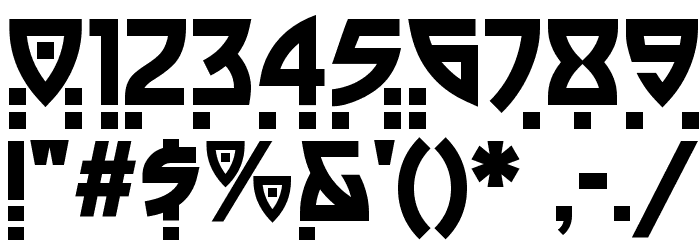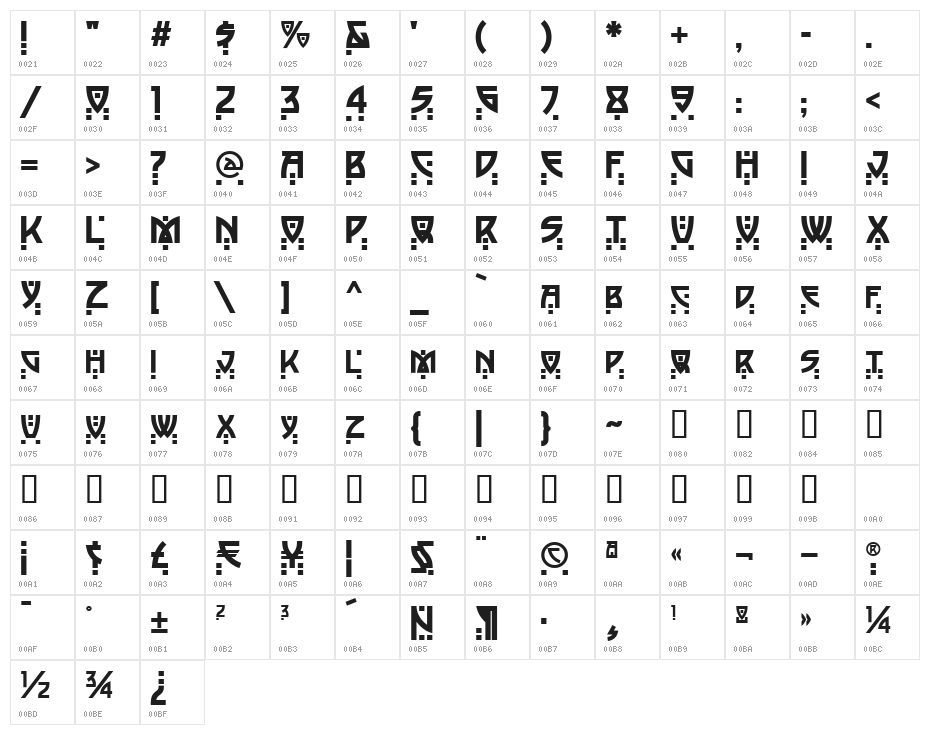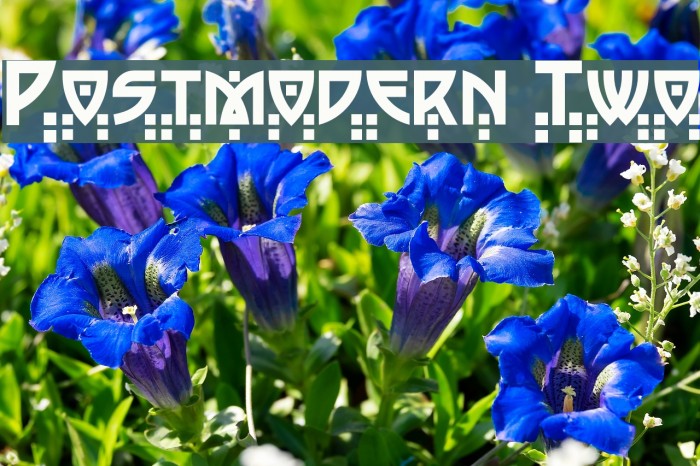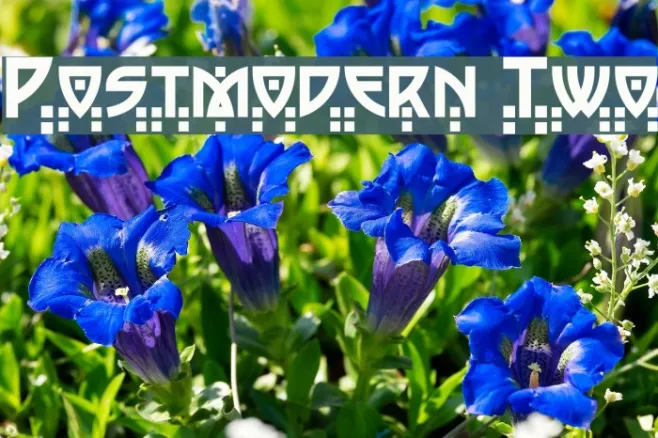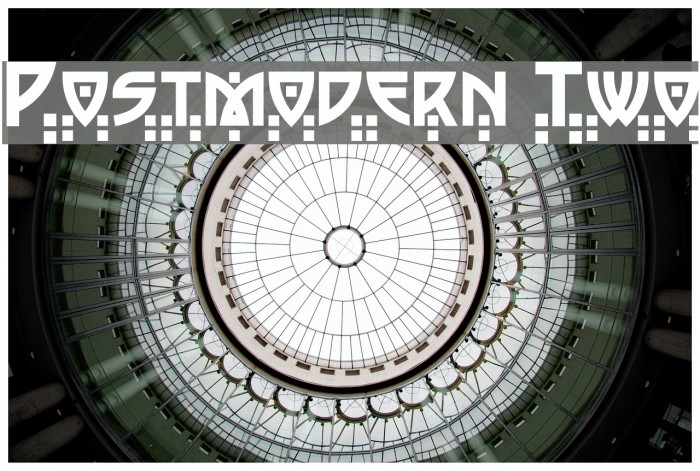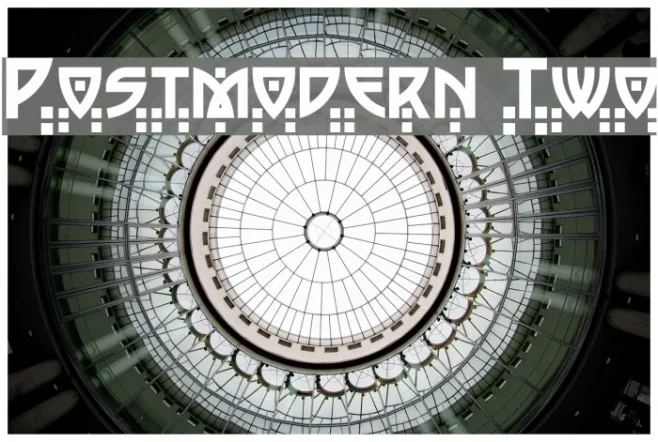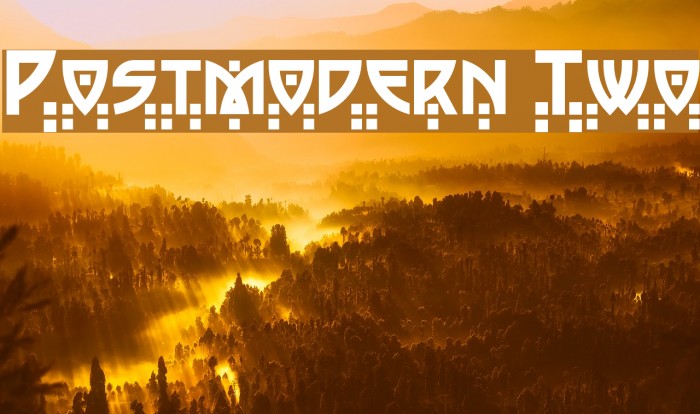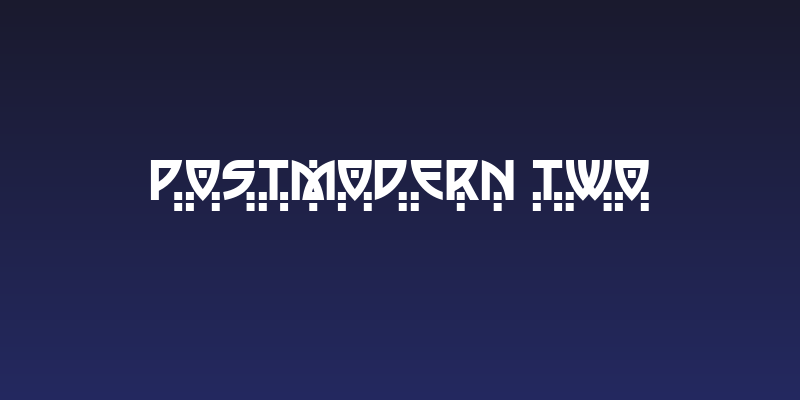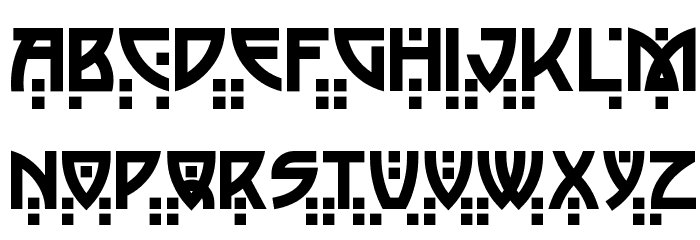
Postmodern Two Font
Postmodern Two Description
This font exhibits a bold and geometric design, characterized by its unique use of square and angular elements. The letters are constructed with solid, thick lines and sharp corners, giving it a futuristic and digital appearance. Each character is adorned with small square dots, adding a decorative and intricate touch. The overall style is highly stylized and modern, making it stand out with its distinctive and unconventional look. The font maintains a consistent weight throughout, with a strong presence and high visual impact. Its structured and symmetrical design makes it suitable for creative and artistic projects that require a bold statement.
| Proposed Projects | Ideal for digital art, video game design, futuristic branding, and sci-fi themed projects. |